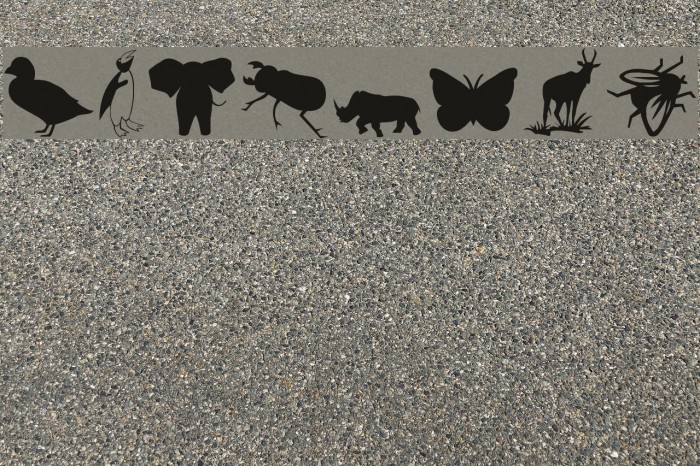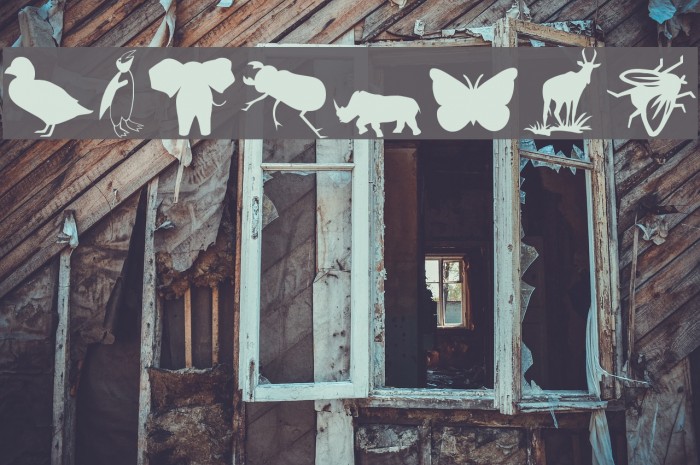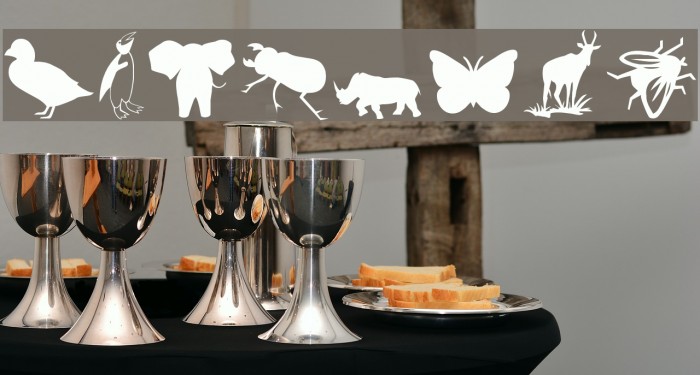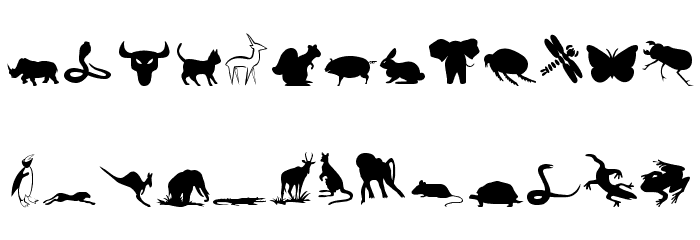
Animals 2 Font
Animals 2 Description
A decorative display font composed of various animal silhouettes representing each character, with each glyph uniquely illustrated in a bold, solid black style. The font is highly pictorial and non-traditional, prioritizing visual representation over legibility.
Animal silhouette icons form each character in a bold, decorative style from Images & Symbols fonts.
- Proposed Projects: Children’s books, educational materials, animal-themed posters, playful branding, creative invitations.
- Overall Style: Decorative, Playful
- Use Case: Logos, Posters, Educational Materials, Themed Headlines